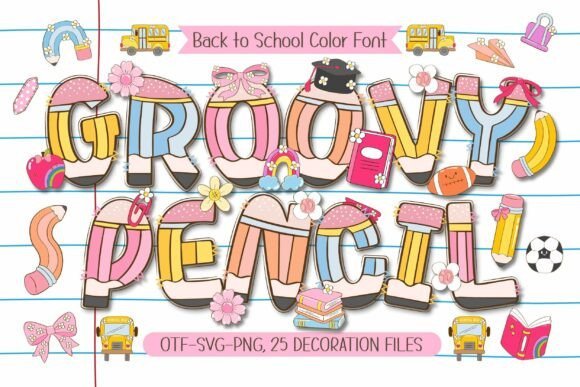
Get Ready to Doodle Your Way to Creativity!
Remember when you were back in school and your teacher would give you a fresh set of pencils to start a new project? The feeling of excitement and possibility was palpable. As a designer, you know that the right font can evoke the same emotions in your audience. Introducing “Groovy Pencil Font”, a vibrant hand-drawn color font designed specifically for Back-to-School projects. This fun and playful font combines bold style with adorable pencil-shaped letter details and playful doodle elements, making it perfect for creating engaging designs.
The “Groovy Pencil Font” is a valuable addition to any designer’s toolkit, offering endless possibilities for creative projects. With its 4 bright colors and 25 cute school-themed doodle cliparts, you’ll be able to create teacher resources, classroom decorations, and more with ease. Whether you’re working on a school poster or a DIY craft, this cheerful font adds a colorful and imaginative touch that kids and teachers will love.
Groovy Pencil Font Key Features
- Unique Characteristics: Hand-drawn, whimsical style, giving it a playful and artistic feel.
Designer Review: Groovy Pencil Font
Overall, I have mixed feelings about the Groovy Pencil Font. On one hand, it’s a great choice for creative and playful projects, and I can see why it’s popular among designers.
- Unique and quirky aesthetic that adds a fun touch to designs
- Good for projects that require a lighthearted or humorous tone
- Works well with bold and bright color schemes
However, I do have some reservations about the font’s limitations.
- May be too playful or childish for more serious or professional projects
- Lack of versatility in terms of font sizes and styles
- May not be suitable for body text or long blocks of text
Overall, I think the Groovy Pencil Font is a fun and quirky choice for designers, but it’s not for every project. It’s best used in moderation and in combination with other fonts to add visual interest and personality to designs.
The Groovy Pencil Font is ideal for creative and playful designs, such as:
Children’s books and educational materials
Party invitations and event promotions
Artistic and whimsical designs
To get the most out of the font, experiment with different font sizes and styles to create a unique and eye-catching design.
Alternatives to Groovy Pencil Font
Pacifico is a beautiful, elegant script font that works well for invitations, wedding designs, and other special occasion graphics. It has a more refined and polished look compared to Groovy Pencil Font, making it suitable for formal events and high-end designs.
Comparison: Pacifico has a more refined and polished look, whereas Groovy Pencil Font is more playful and rough. Use Pacifico when you need a sophisticated and elegant font.
Great Vibes is a modern, cursive script font that is perfect for creative projects, advertisements, and social media graphics. It has a more relaxed and casual feel compared to Groovy Pencil Font, making it suitable for fun and playful designs.
Comparison: Great Vibes has a more relaxed and casual feel, whereas Groovy Pencil Font is more energetic and playful. Use Great Vibes when you need a font that conveys a sense of fun and relaxation.
Carolyna Pro is a modern, elegant script font that is perfect for luxury brands, fashion designs, and high-end packaging. It has a more sophisticated and refined look compared to Groovy Pencil Font, making it suitable for premium and high-end designs.